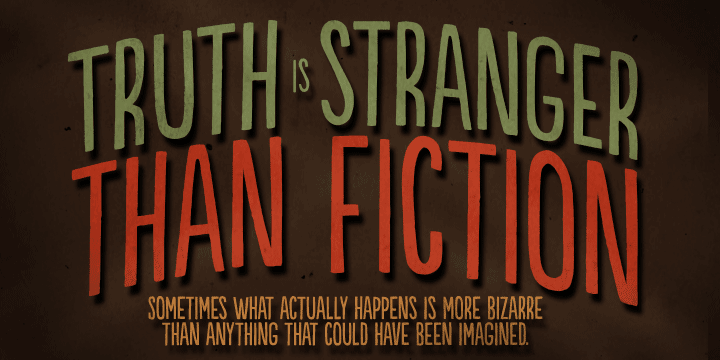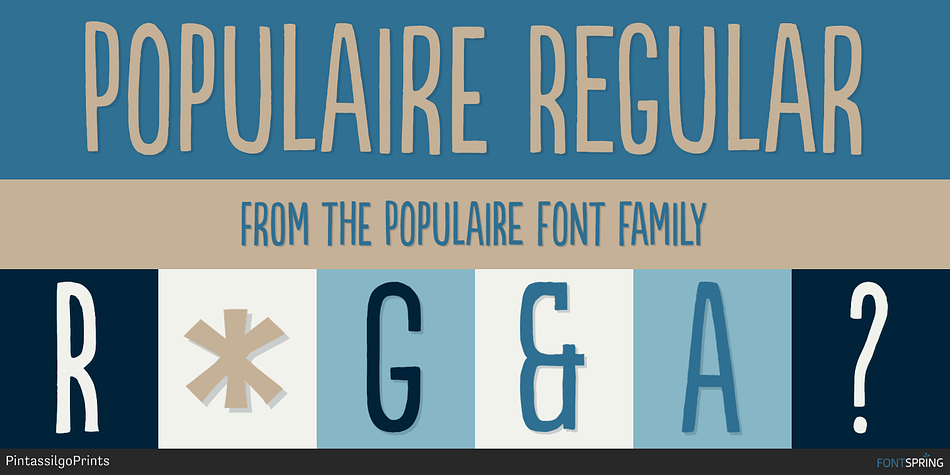
POPULAIRE REGULAR
Populaire is a hand display font family. This typeface has two styles and was published by PintassilgoPrints.
Populaire is a hand-drawn font that mimics true handcrafted lettering.
Populaire is a hand-drawn font that mimics true handcrafted lettering. Counting 4 glyphs for each letter, its laborious kerning table ensures the glyphs are truly exchangeable. Yet, there’s a cool set of ornaments and a kind-of-magic OpenType feature. When this font is used in OpenType savvy applications, its Contextual Alternates feature produce a striking random-like effect on glyphs distribution, achieved by cycling through alternates. When not using the Contextual Alternates feature, you can still pick the alternates in the Glyphs palette or just use the two alternates available direct from the keyboard upper and lower case. Inspired by the electrifying posters from May 1968 produced by Atelier Populaire, this dynamic font is flexible enough to bring freshness and energy to a wide range of design applications.